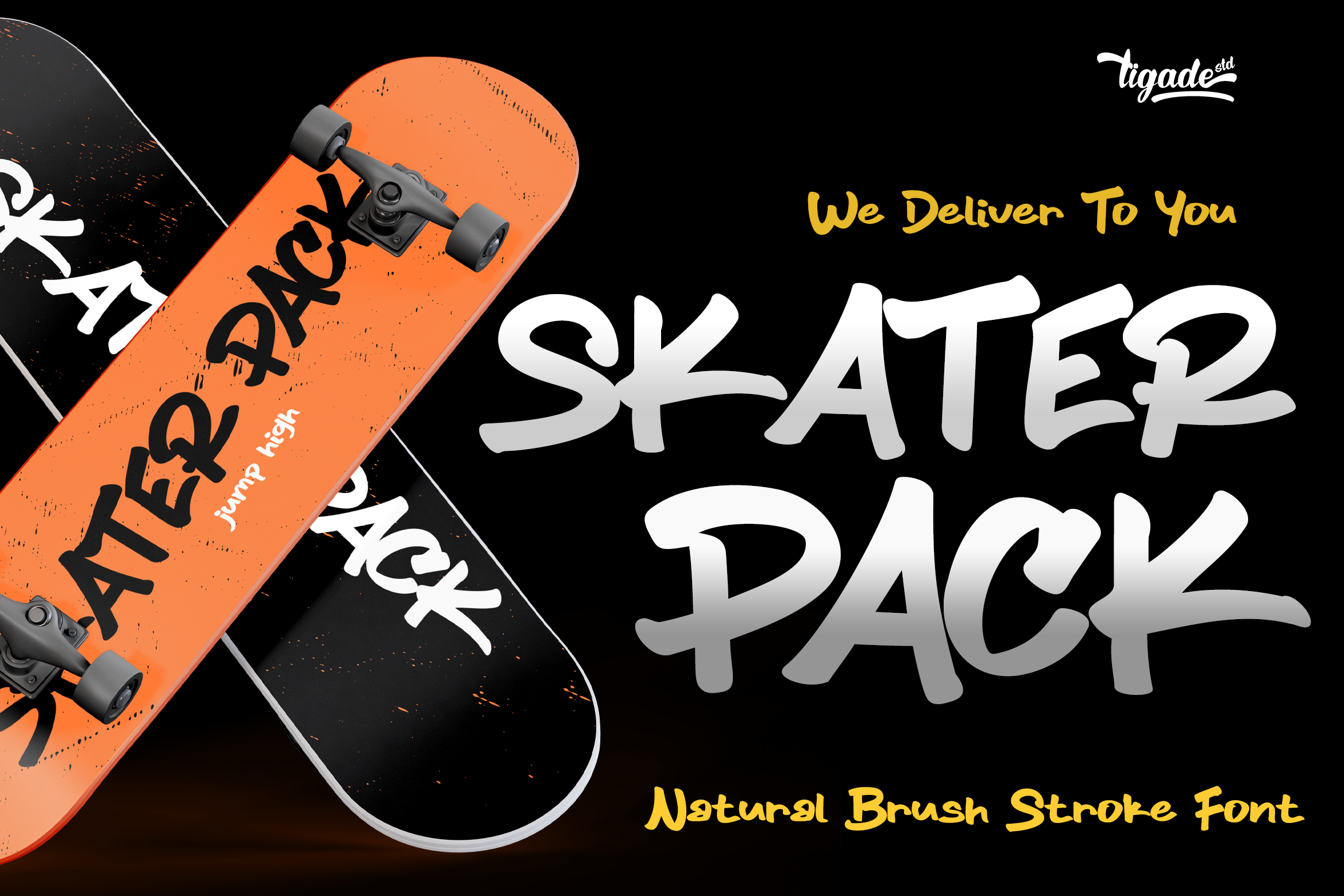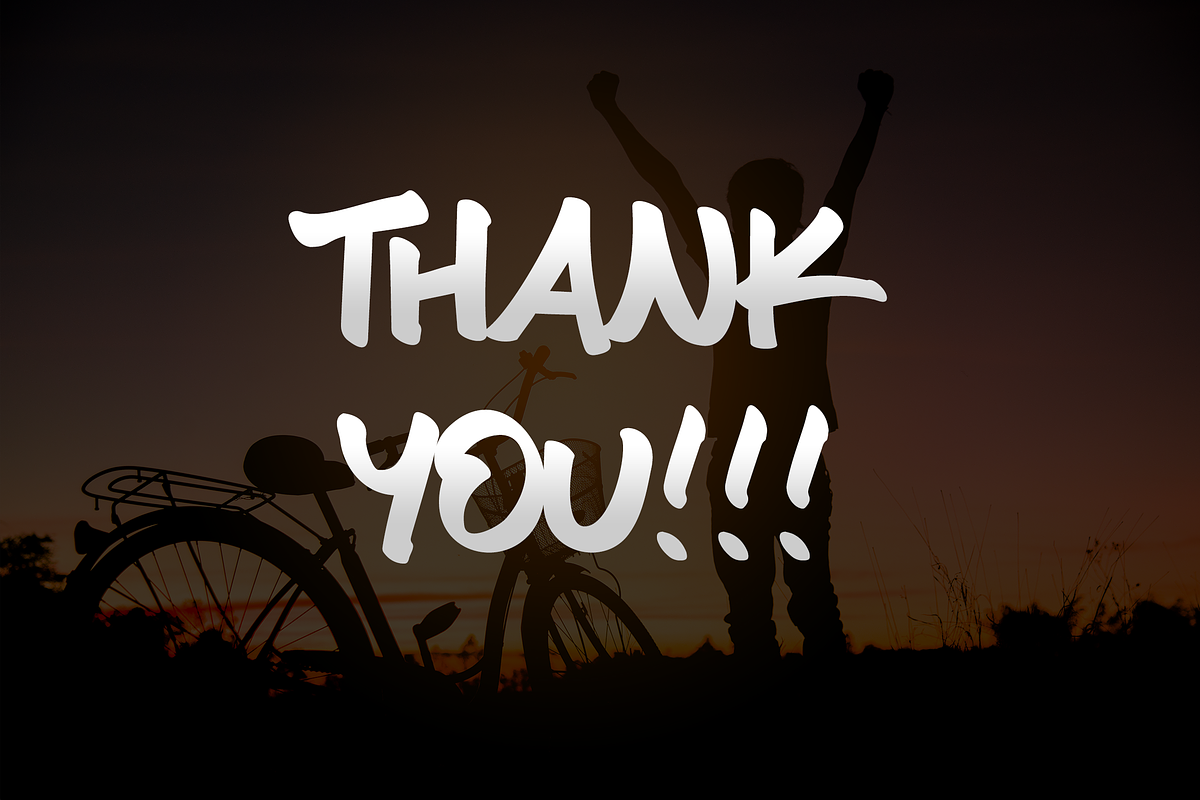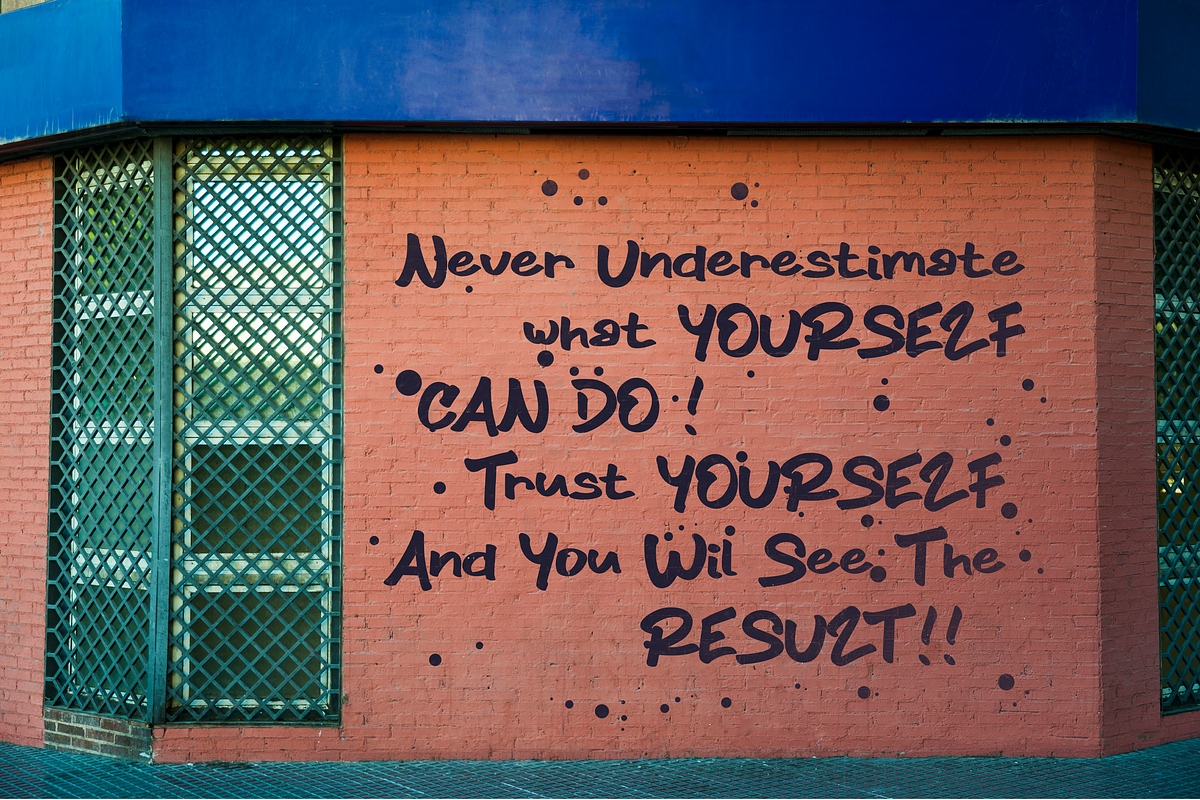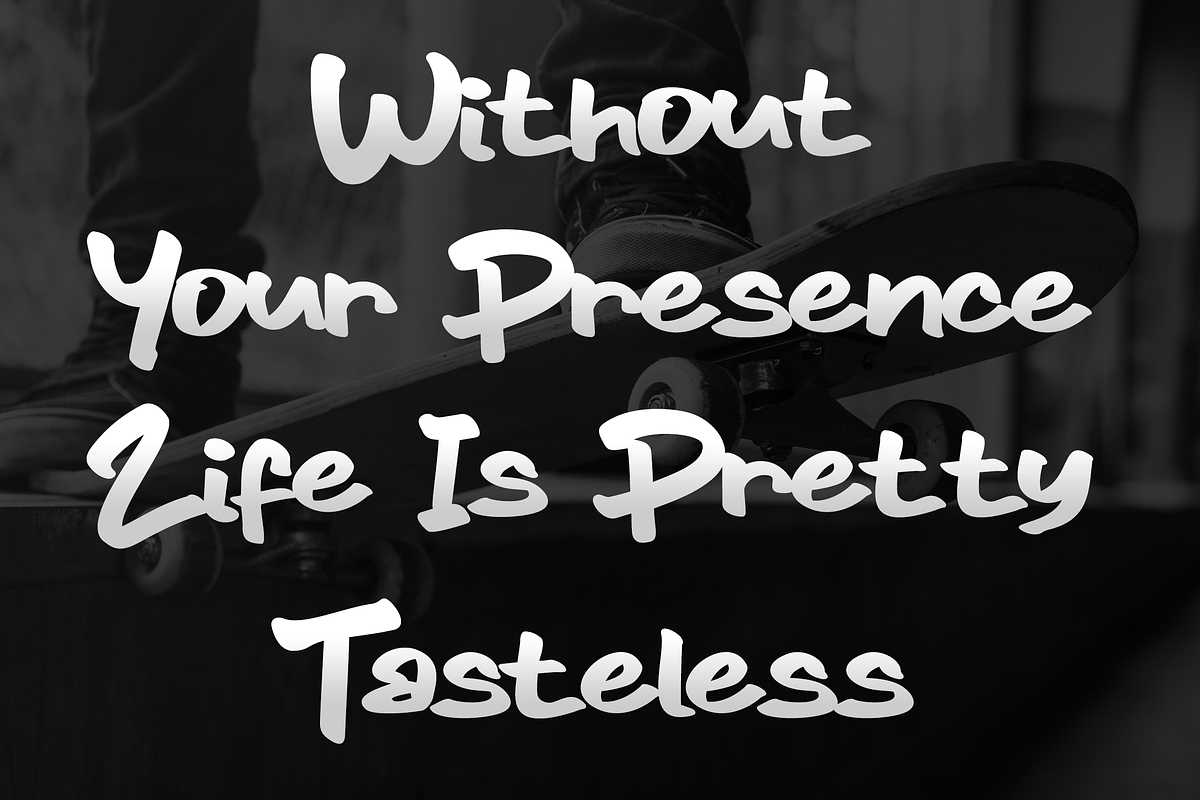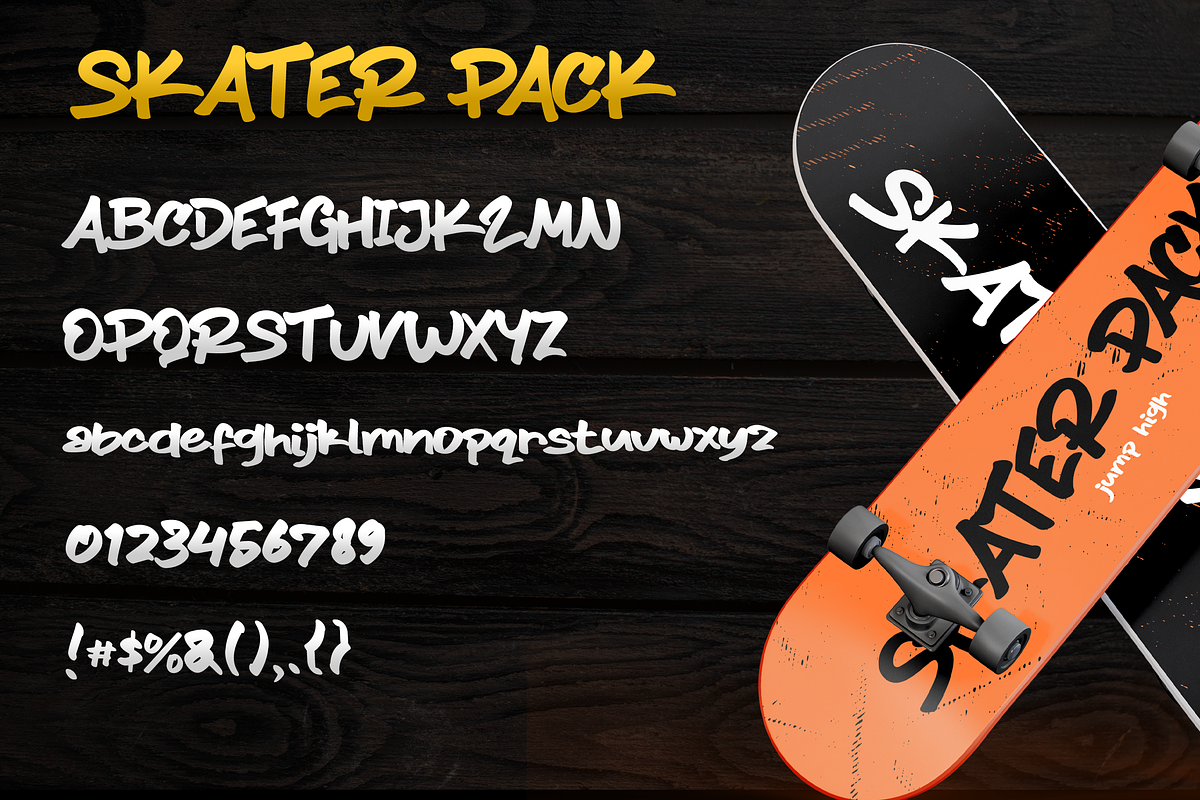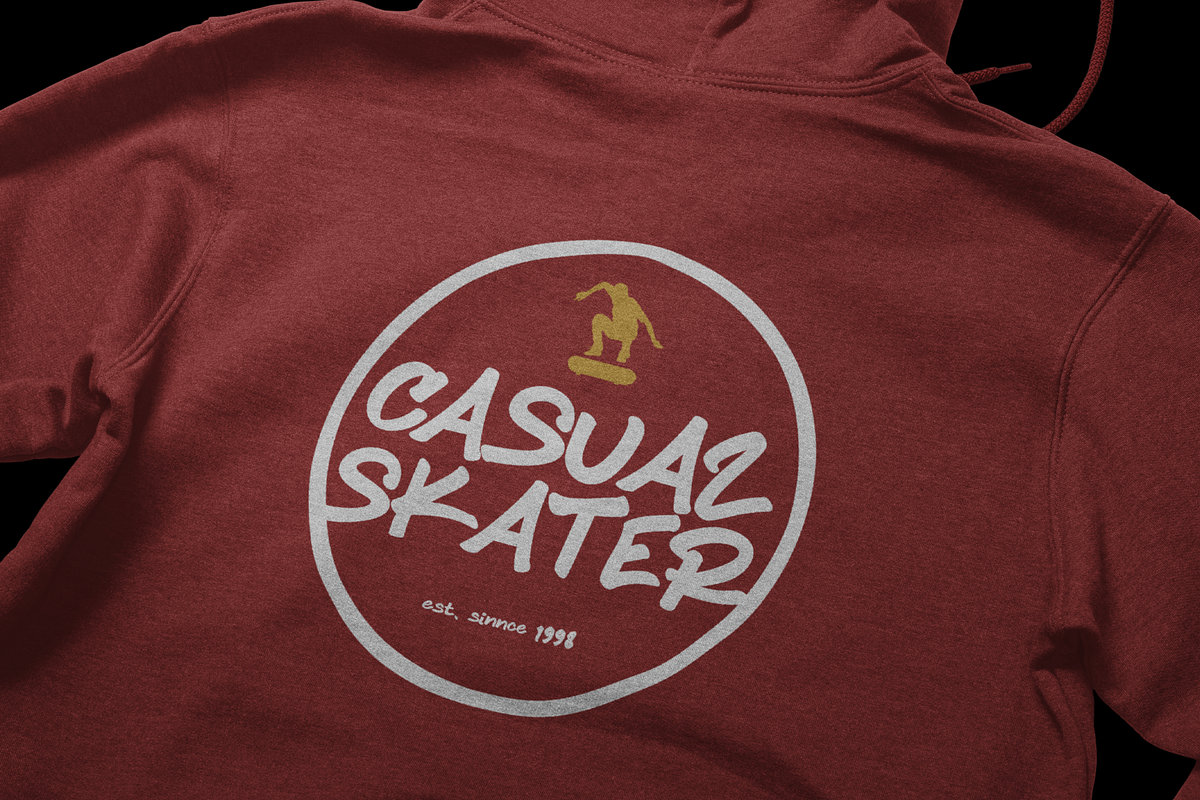
Skater Pack | Graffiti Font
Skater Pack is a quirky and awesome graffiti brush font. It has a unique style that makes it perfect for any creative project that requires a graffiti look!